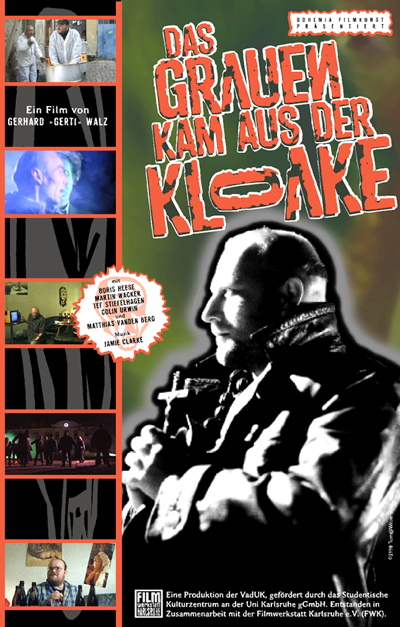
DERIVAT is based on rub-down lettering. Because single glyphs where soon missing on the sheet, people began altering other glyphs as a substitution for the missing glyphs. In the 80s this caused original aesthetics. Because it's an all caps font, DERIVAT uses this aesthetics by putting some altered uppercase glyphs in the lowercase slots. Additionally some glyphs in the lowercase slots where mirrored to add another disturbing effect. After DERIVAT No1 was digitized the whole alphabet was scratched with a scalpel, then DERIVAT No2 was created with equal metrics to work as a layer font with DERIVAT No1. Together they can be colored different to get an even more eroded look. I used DERIVAT only once in 1998 for titling and packaging of a no budget Zombie film called "DAS GRAUEN KAM AUS DER KLOAKE" by Gerhard »Gerti« Walz, and I nearly forgot about it. But since I stumbled over it again, I now make it available to the public. Thomas Mettendorf /// After adding some essential glyphs like e.g. Euro, I now did an update to the font naming, since the conversion from 'Mac PostScript' to 'OpenType PS' caused problems in several apps, by showing only one weight in the font menu. Sorry about that ... but this second update hopefully will show both fonts in your application. |